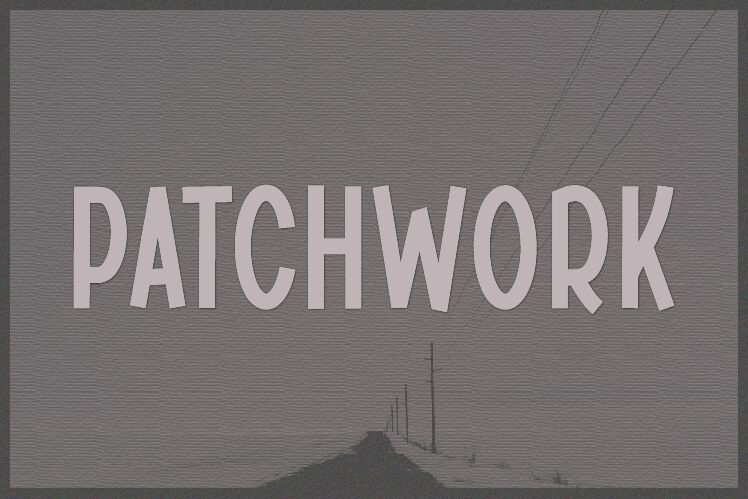
Patchwork font family is a two-font fancy typeface which features an impressive style and straightforward design. Created by Hanna Bie from Poland, this free font family boasts tall and geometric letter shapes inspired by the stitches and seams of patchwork fabric. Its uniform structure and clean appearance contribute to its contemporary design, allowing the text to be readable, impactful, and fun.